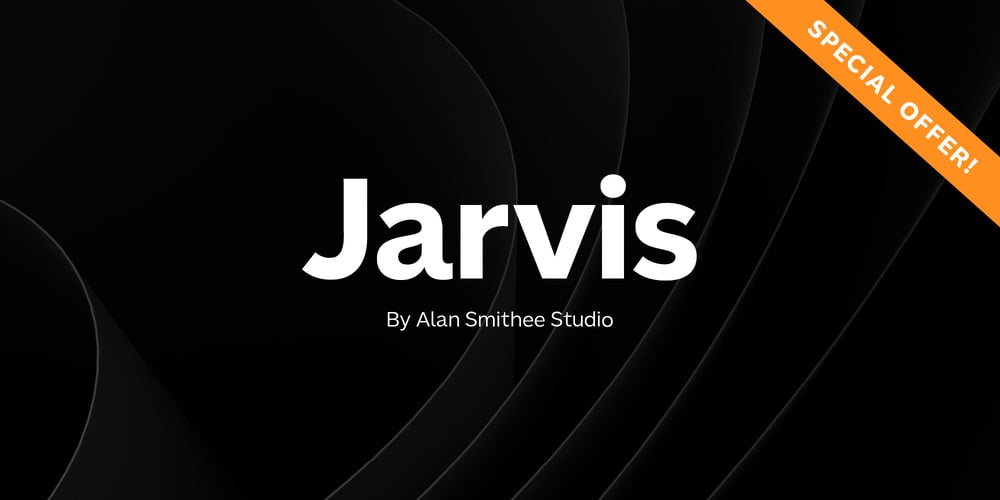
Jarvis Font Family was designed by Alan Smithee and published by Alan Smithee Studio. Jarvis contains 12 styles and family package options. Jarvis is a hybrid. Not a pure grotesque, not a humanist sans, but the best of both worlds. Its open counters and strong geometry, coupled with smooth curves and features give it a unique personality. Very legible even at small sizes, instantly recognisable at large sizes, it is an ideal candidate for corporate identity as well as print and digital communications of all kind. Its wide range of weights (from Thin to Black), extensive OpenType features, circled numbers, and extended character-set are the hallmark of the highest technical level.